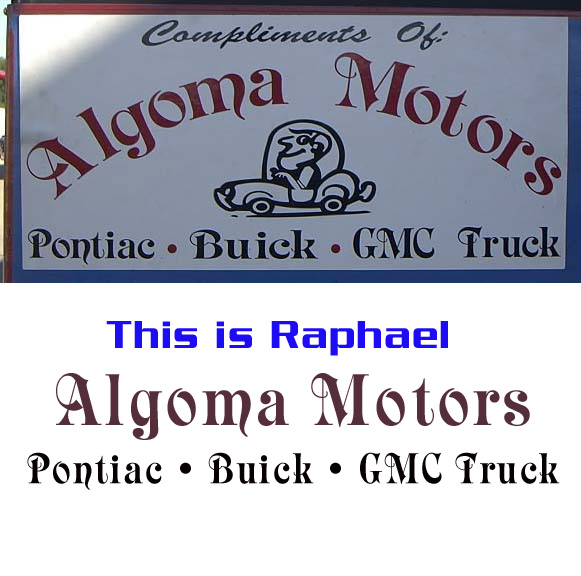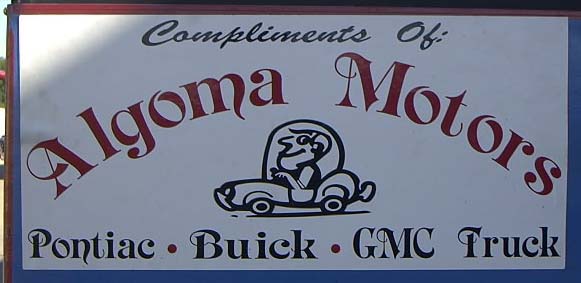
This one has been stumping me. What is the name of the font which reads "Algoma Motors"? I must admit......it is hidious but that is what the customer wants.....yikes!
You may have a clone by that name Scott, but it is Raphael. Here is a pic of it and a link to the font:
Raphael